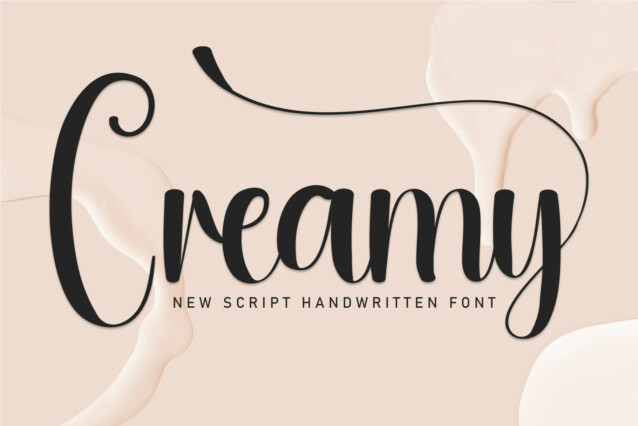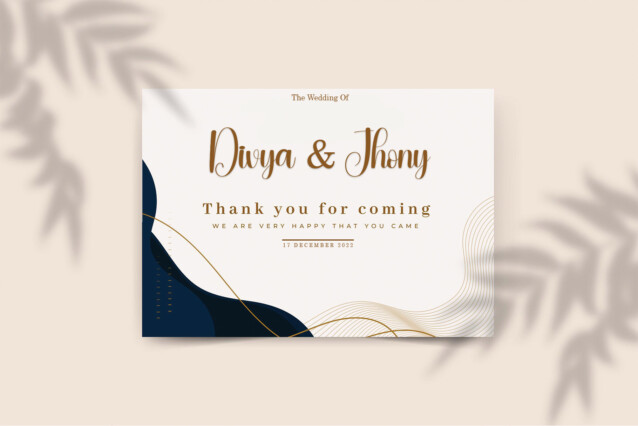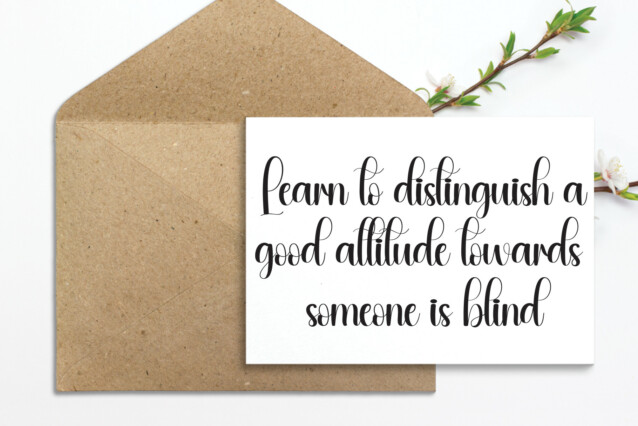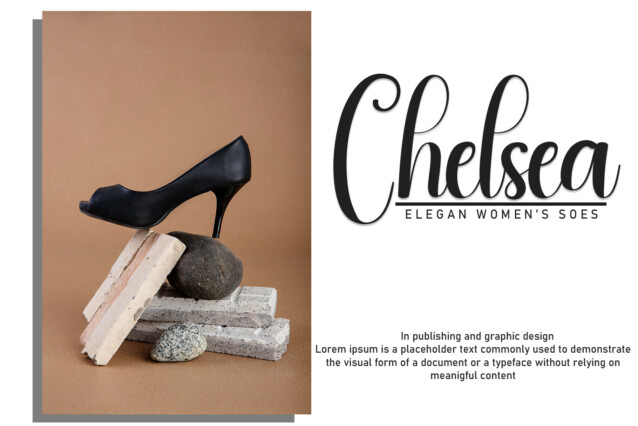
Creamy Script Font
Creamy Script Font is a sweet and friendly handwritten display font. Cute and fun, this font is ideal for writing wedding invitations, cards, or any other design that might need a playful touch!